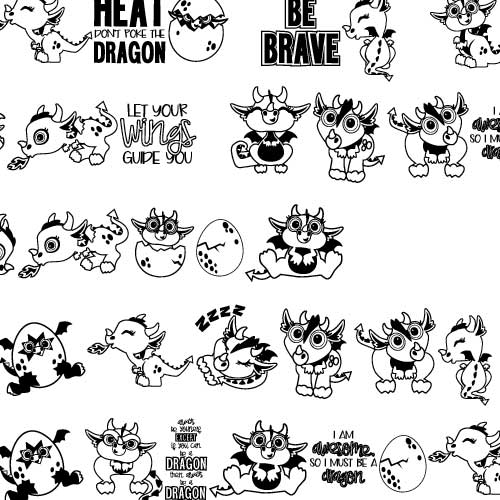
DB Little Dragons - DB
This adorable doodlebat font features 26 sweet little dragons perfect for cards, crafts, planner stickers, scrap book pages, parties, decor and more!